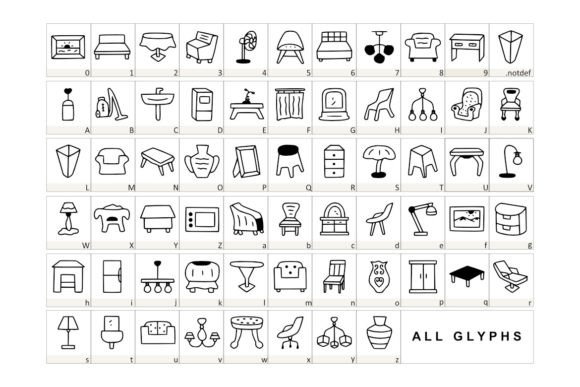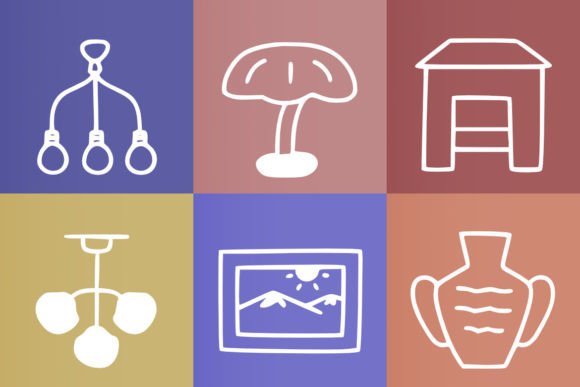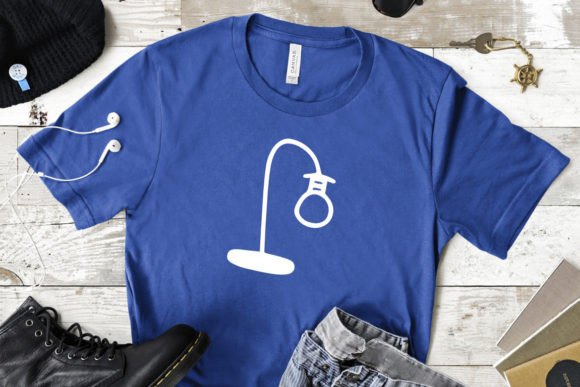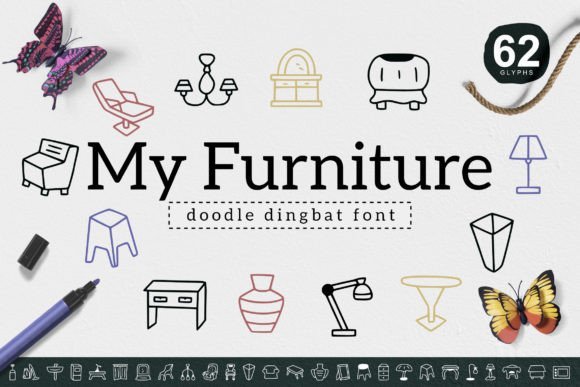
Introduction to My Furniture Font
My Furniture is a cute and useful dingbats font perfect for a wide variety of projects.
Use it for stickers, posters, t-shirts, cards, apparel graphics, etc , and you will love the results.
Why Choose My Furniture Font?